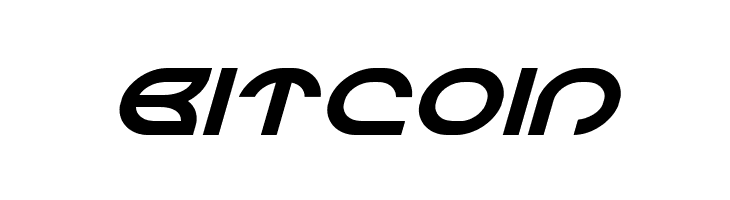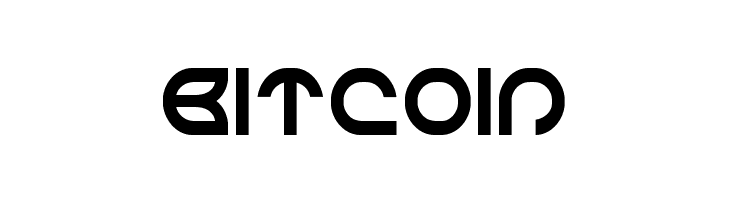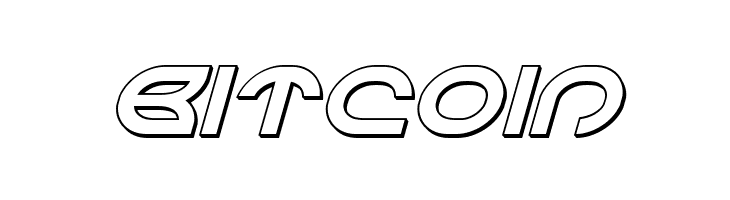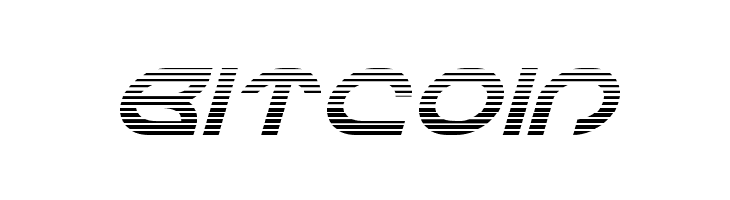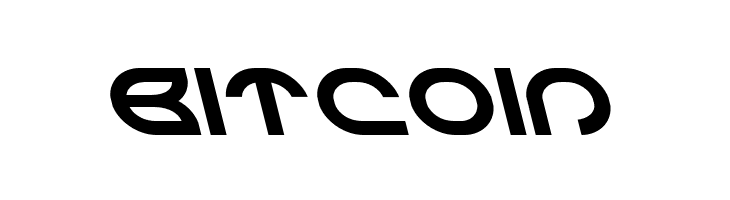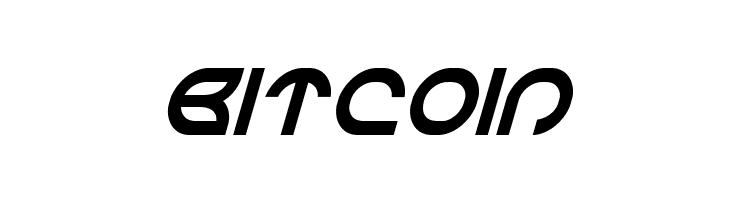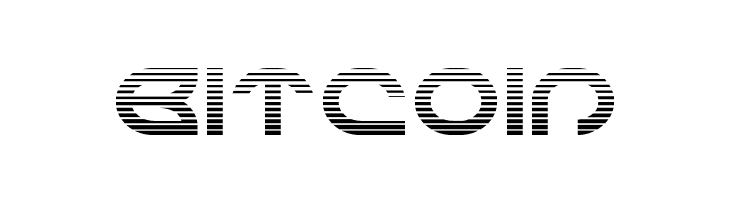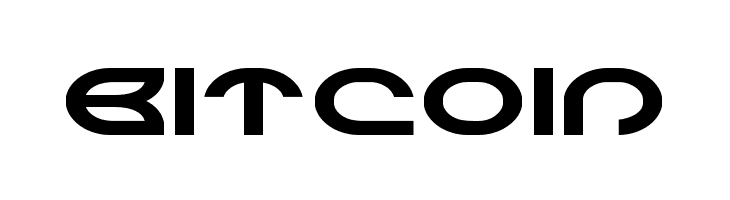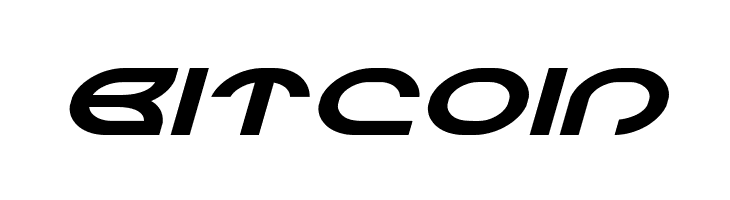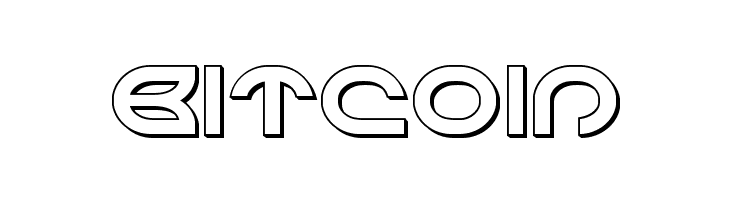
Aetherfox Font
A futuristic, geometric font with bold, rounded letterforms and unique cutouts.
Aetherfox Condensed Font
A futuristic, geometric font with a condensed and modern design.
Aetherfox Italic Font
A sleek, futuristic italic font with dynamic curves and sharp edges.
Aetherfox 3D Font
A futuristic, geometric font with outlined, hollow characters.
Aetherfox Expanded Italic Font
A futuristic, expanded italic font with sleek curves and sharp angles.
Aetherfox Gradient Font
A futuristic font with a gradient line effect and geometric structure.
Aetherfox Expanded Font
A futuristic, geometric font with bold, expanded letterforms and a modern aesthetic.
Aetherfox Leftalic Font
A futuristic, geometric font with bold strokes and angular cuts.
Aetherfox Condensed Italic Font
A sleek, futuristic, condensed italic font with sharp angles and smooth curves.
Aetherfox Gradient Italic Font
A futuristic, italicized font with gradient-like lines and a sleek, modern design.
Aetherfox 3D Italic Font
A futuristic, 3D italic font with geometric and dynamic design.